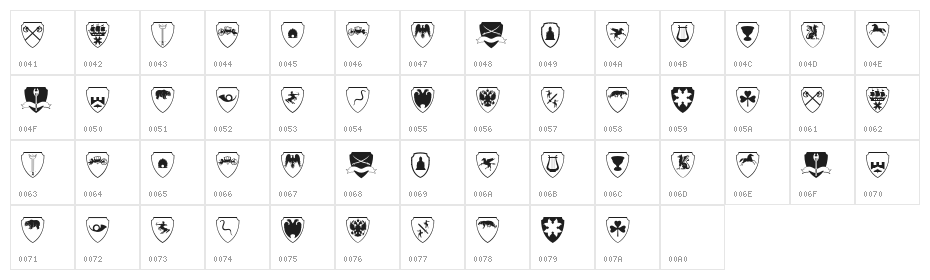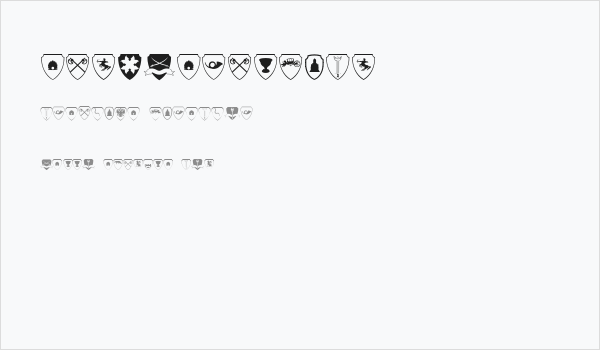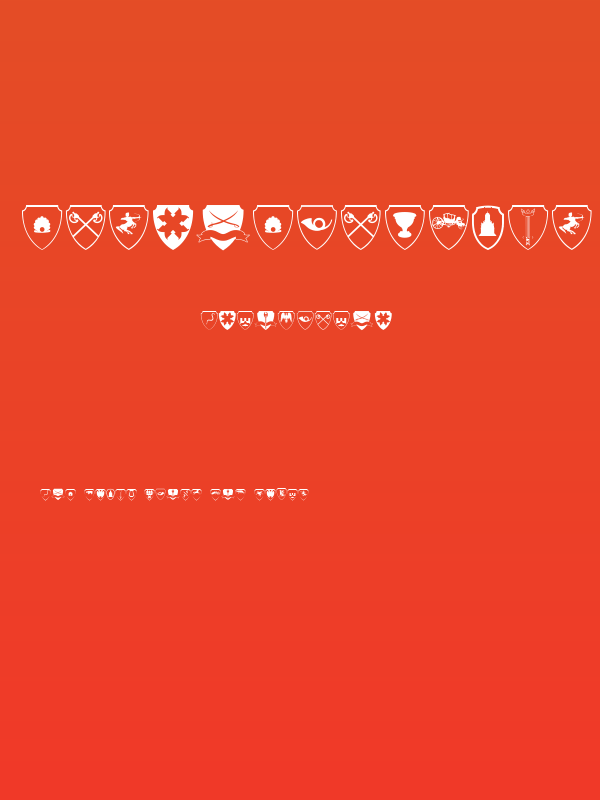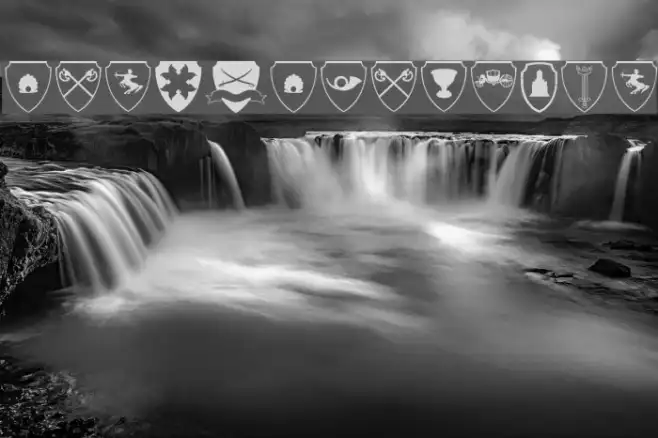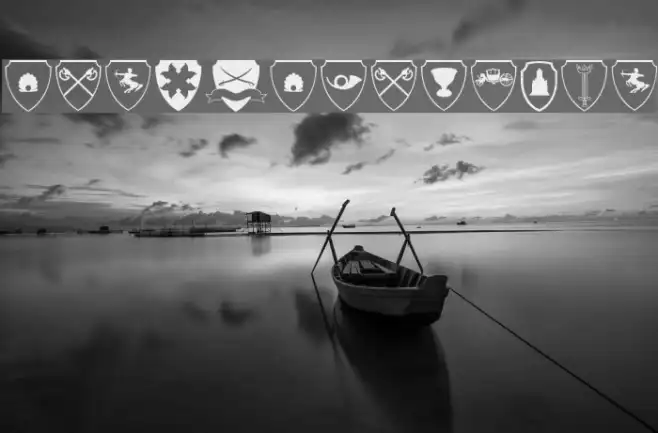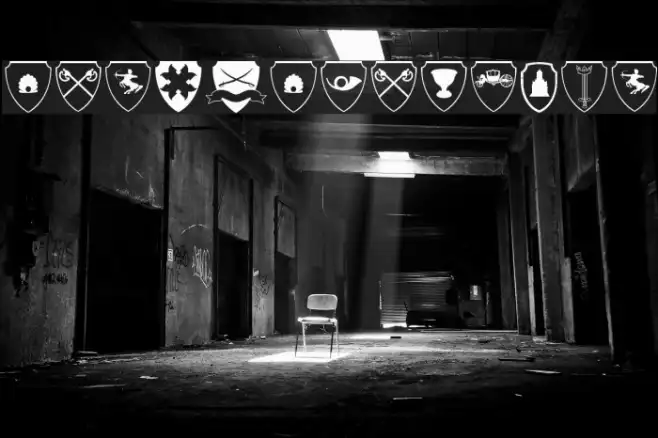
EasyHeraldics Font
EasyHeraldics Description
A decorative display set featuring heraldic shield icons, each containing a unique medieval or fantasy-inspired symbol such as animals, objects, and mythical creatures. The icons are bold, high-contrast, and rendered in a simple black-and-white style, suitable for emblematic or ornamental use.
| Overall Style | Decorative, Medieval, Fantasy |
| Use Case | Logos, Icons, Decorative elements, Themed graphics |
| Proposed Projects | Board games, fantasy book covers, RPG materials, medieval-themed websites, educational posters, heraldry guides. |